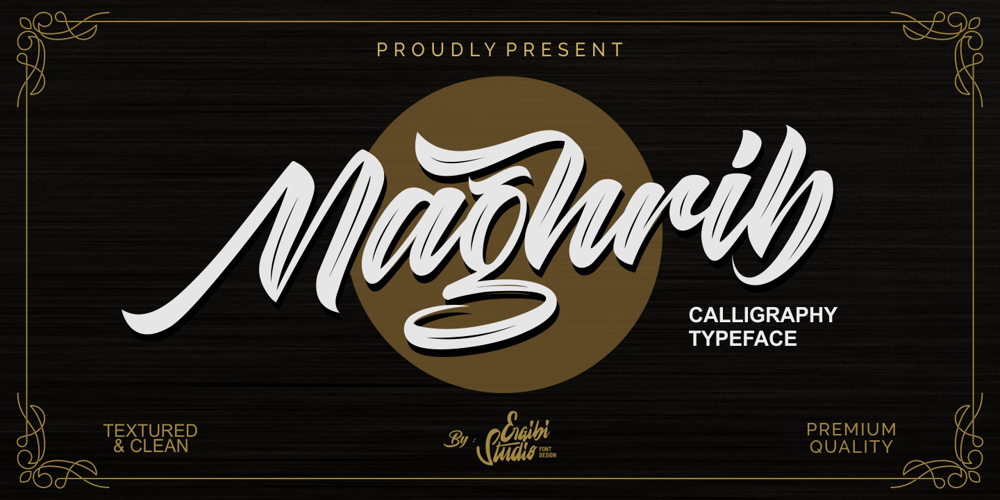
Maghrib Font Family was designed by Riyadh Rahman and published by Ergibi Studio. Maghrib contains 2 styles and family package options. Maghrib Calligraphy typeface is the new font in our collection. This font contains two versions, one clean and textured style and is having a lot of additional swashes. Maghrib is ideal for logos, badges, clothing, product packaging, headlines, T-shirt/apparel, posters, or anything which needs a calligraphic touch. If you have any questions, don’t hesitate to contact us.